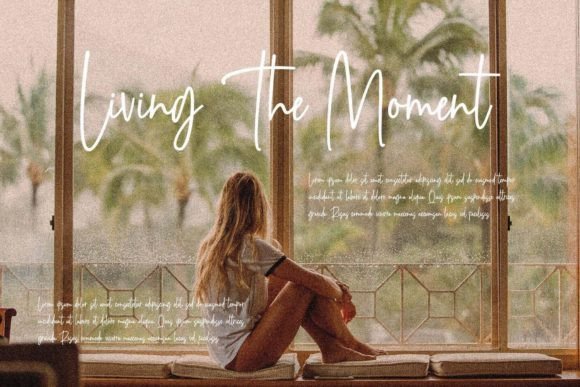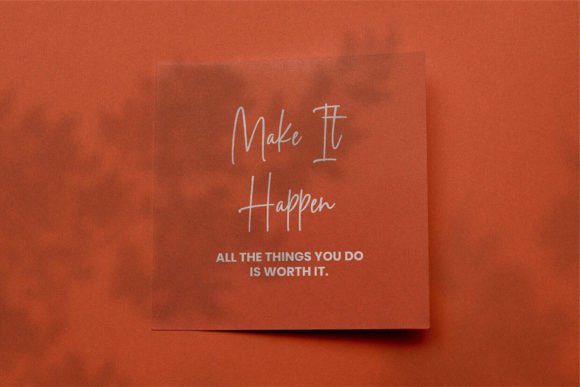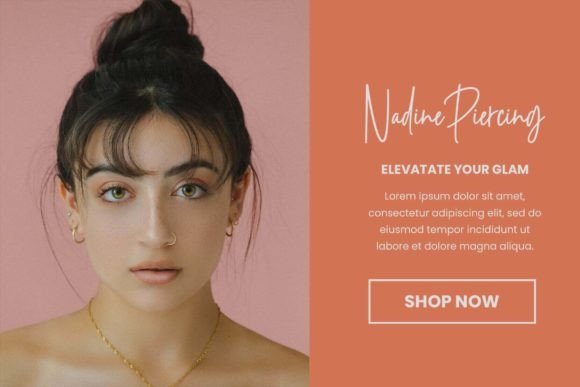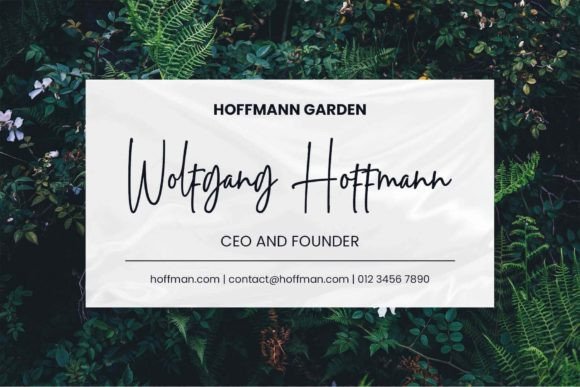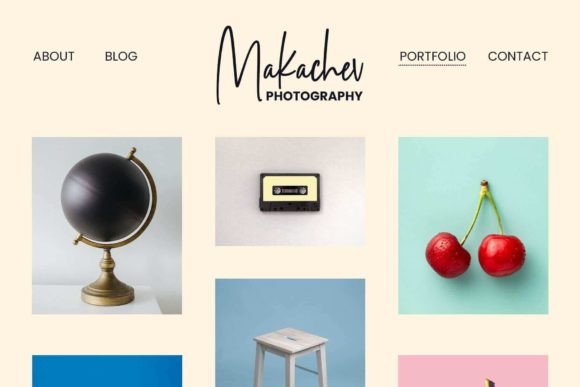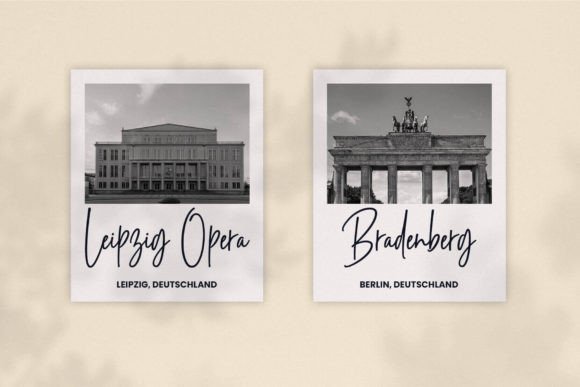
Introduction to Holigans Font
Have you ever stared at a blank canvas, trying to conjure up the perfect handwritten touch for your design project? The struggle is real, especially when you’re working on a creative project that requires a personal, handwritten feel. That’s where the Holigans Font comes in – a beautifully designed script font that mimics the natural flow of handwriting, making it perfect for designers who want to add a touch of warmth to their work.
As a valuable resource for designers, the Holigans Font offers a unique aesthetic that can elevate any project. Whether you’re working on branding, logos, or social media posts, this font is sure to bring a high-quality, handwritten touch to your designs. With its PUA encoding, you can access a wide range of glyphs and ligatures, making it a versatile design resource that’s perfect for a variety of creative projects.
- Unique, bold, and playful design, perfect for adding a touch of personality to any project.
Honest Review: Holigans Font
I recently stumbled upon the Holigans Font, a free design resource that caught my attention. As a designer, I’m always on the lookout for high-quality fonts that can elevate my creative projects. In this review, I’ll share my honest thoughts on this font.
- Unique design style: The Holigans Font has a distinctive, playful feel that can add a touch of whimsy to your designs.
- Clear and legible: Despite its bold and quirky design, the font is still easy to read, making it suitable for body text or headings.
- Limited versatility: While the font is great for creative projects, it may not be the best choice for formal or professional designs.
Overall, I think the Holigans Font is a great addition to any designer’s toolkit. Its unique design style and free download make it a valuable resource for creative projects. However, its limited versatility and lack of transparent background option may limit its use in certain situations.
Common Use Cases for Holigans Font
Use the Holigans Font for a variety of design projects, including social media graphics, posters, and business cards. The font’s transparent background and high-quality design make it an ideal choice for creating professional-looking designs.